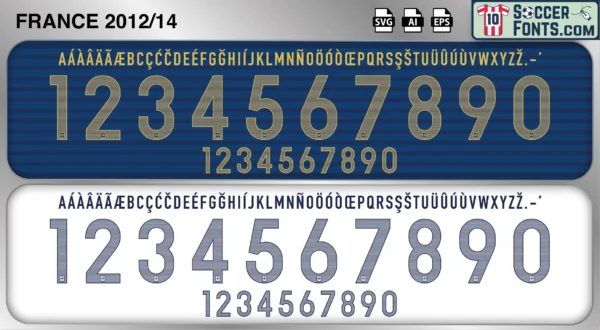
France 2012-14 Font
The France 2012-14 font is an editable soccer jersey lettering design in vector format inspired by the France kit style used during the 2012-14 football seasons. This football font artwork is prepared for football shirt recreations, custom jersey projects, football kit mockups and sports graphic design workflows.
The 2012-14 period followed UEFA EURO 2012 and represented the continued development of a new generation within the French national team. Under Didier Deschamps, France began building a squad capable of competing for major international honors once again. Players such as Hugo Lloris, Karim Benzema, Franck Ribéry, Paul Pogba, Blaise Matuidi and Mamadou Sakho became central figures as the team prepared for the 2014 FIFA World Cup in Brazil. The era saw France gradually rediscover consistency and confidence while integrating exciting young talents into the national setup.
The France 2012-14 font became associated with the road to the 2014 World Cup and the emergence of players who would later form the backbone of future French success. France shirts from this era remain popular among football shirt collectors because of their connection with Ribéry’s final peak years, Pogba’s international breakthrough and one of the most important rebuilding periods in modern French football. The France 2012-14 font reflects a time of growth, optimism and renewed competitiveness as France re-established itself among the leading nations in world football.